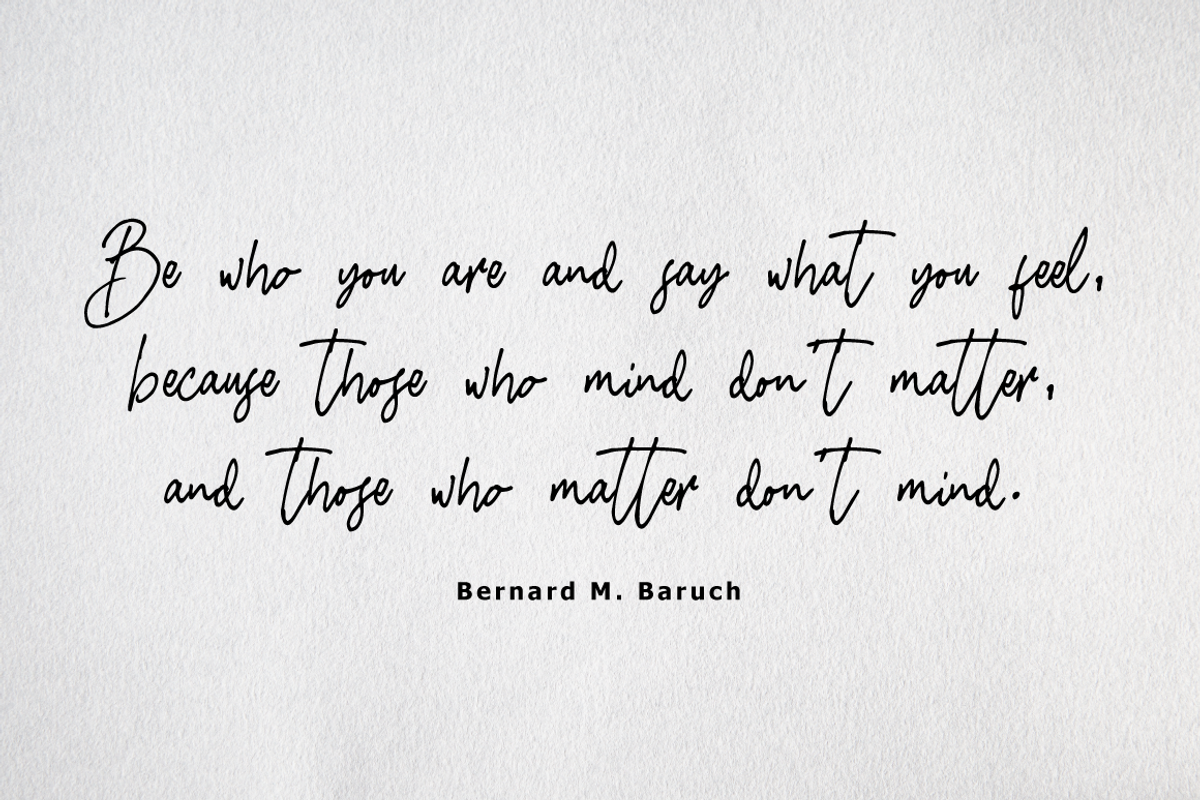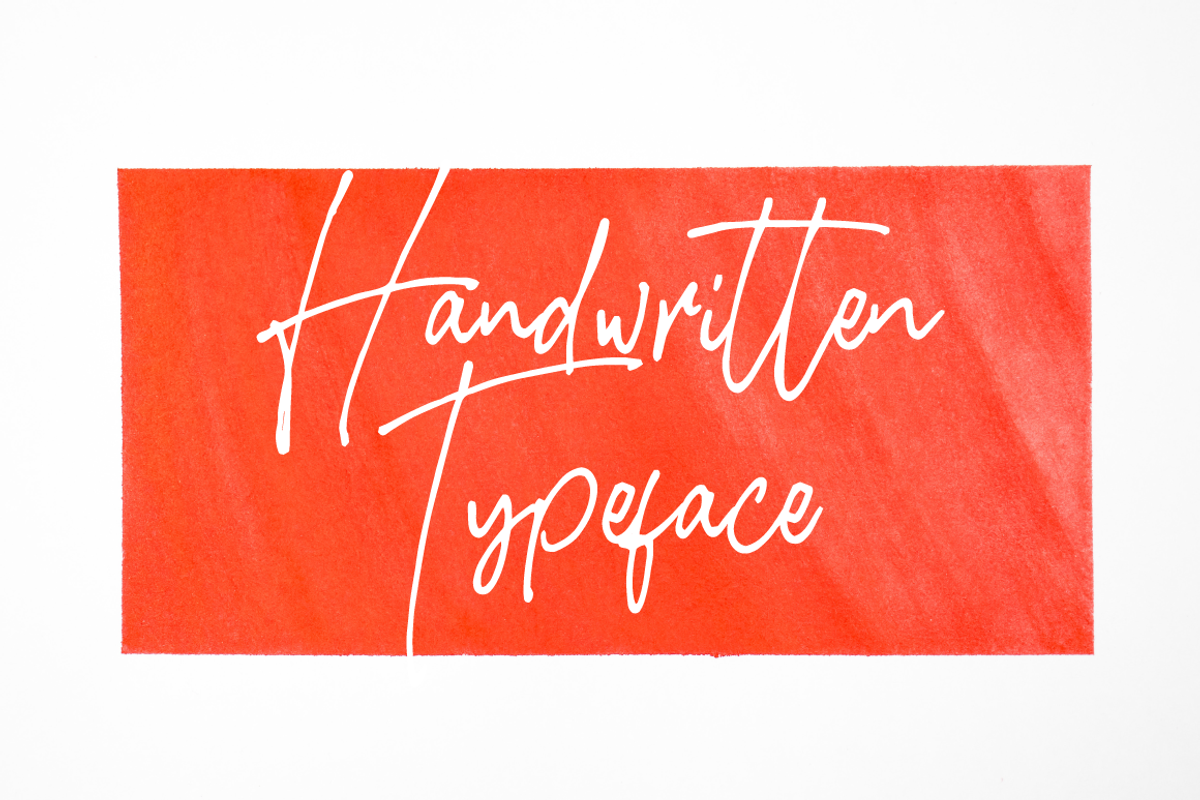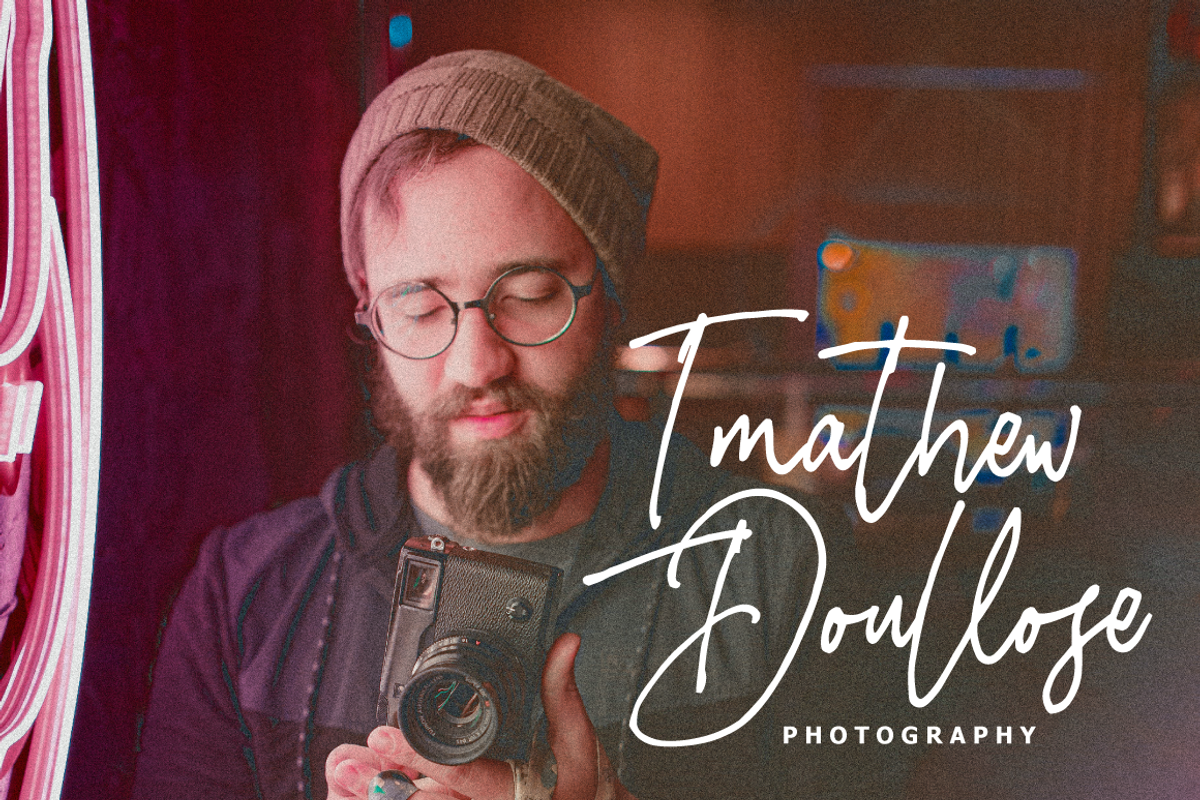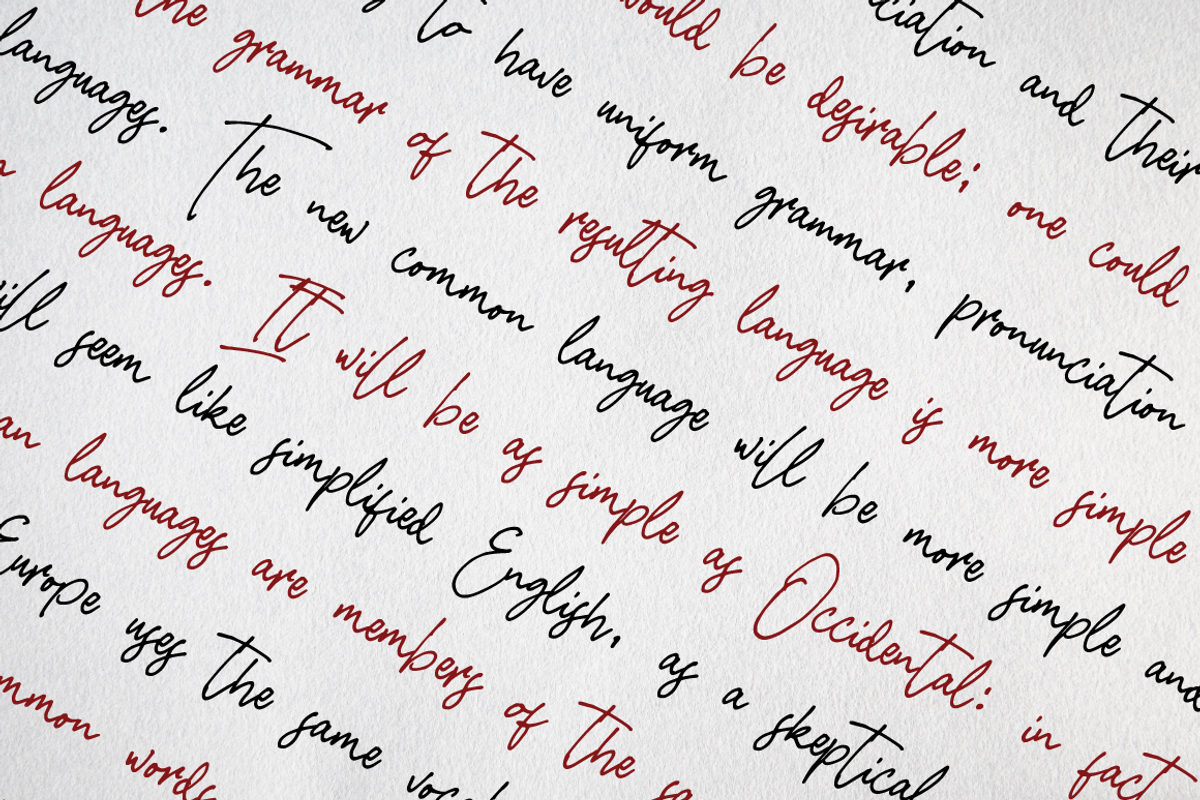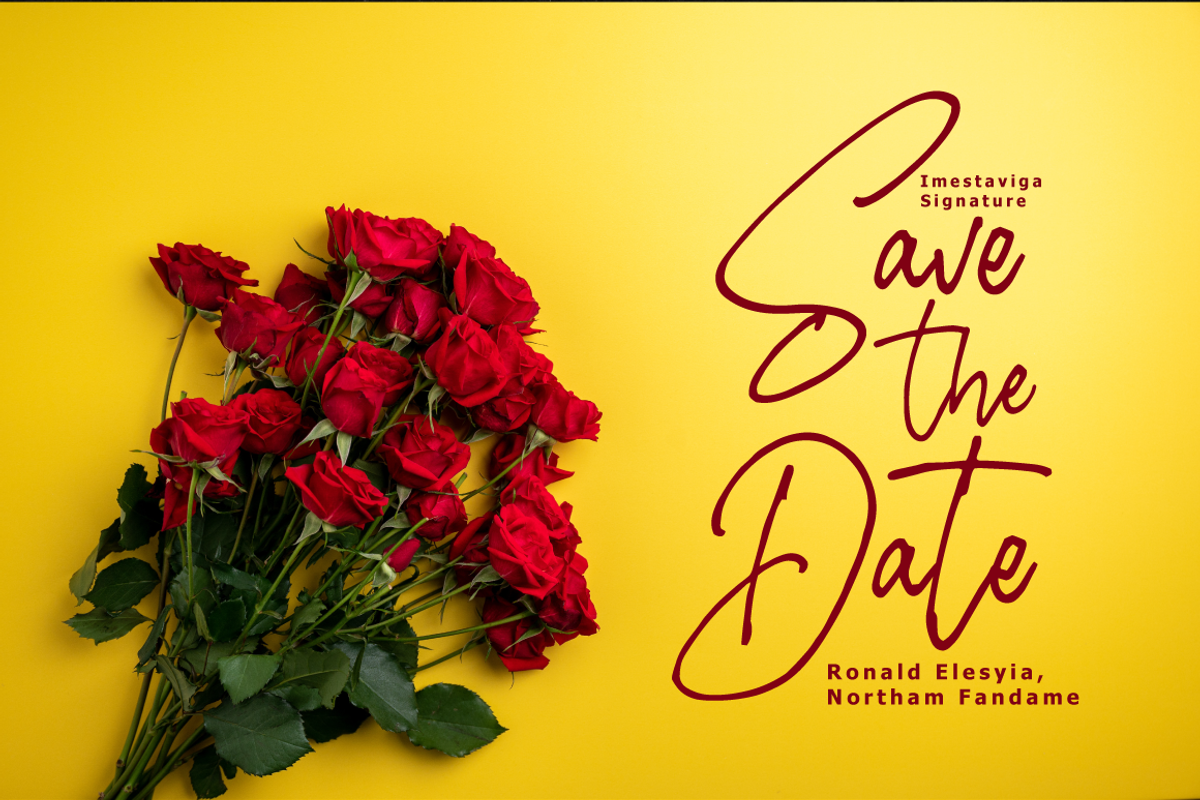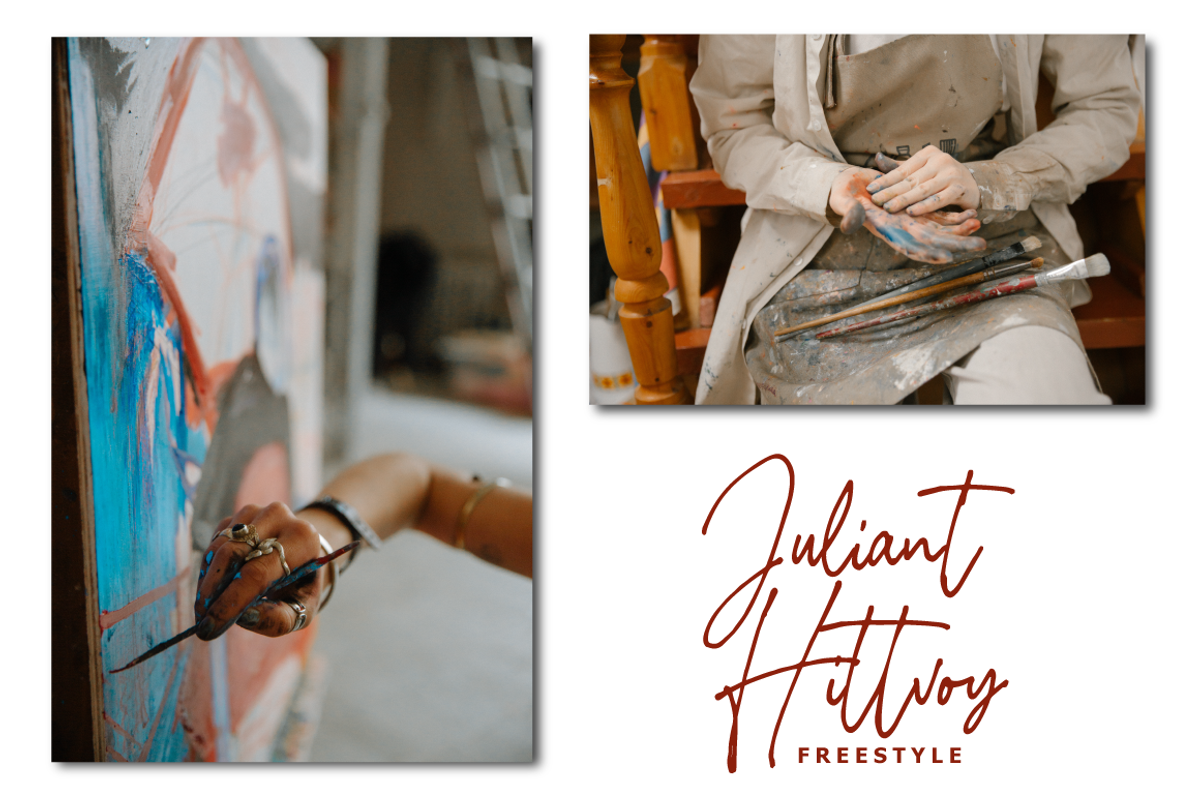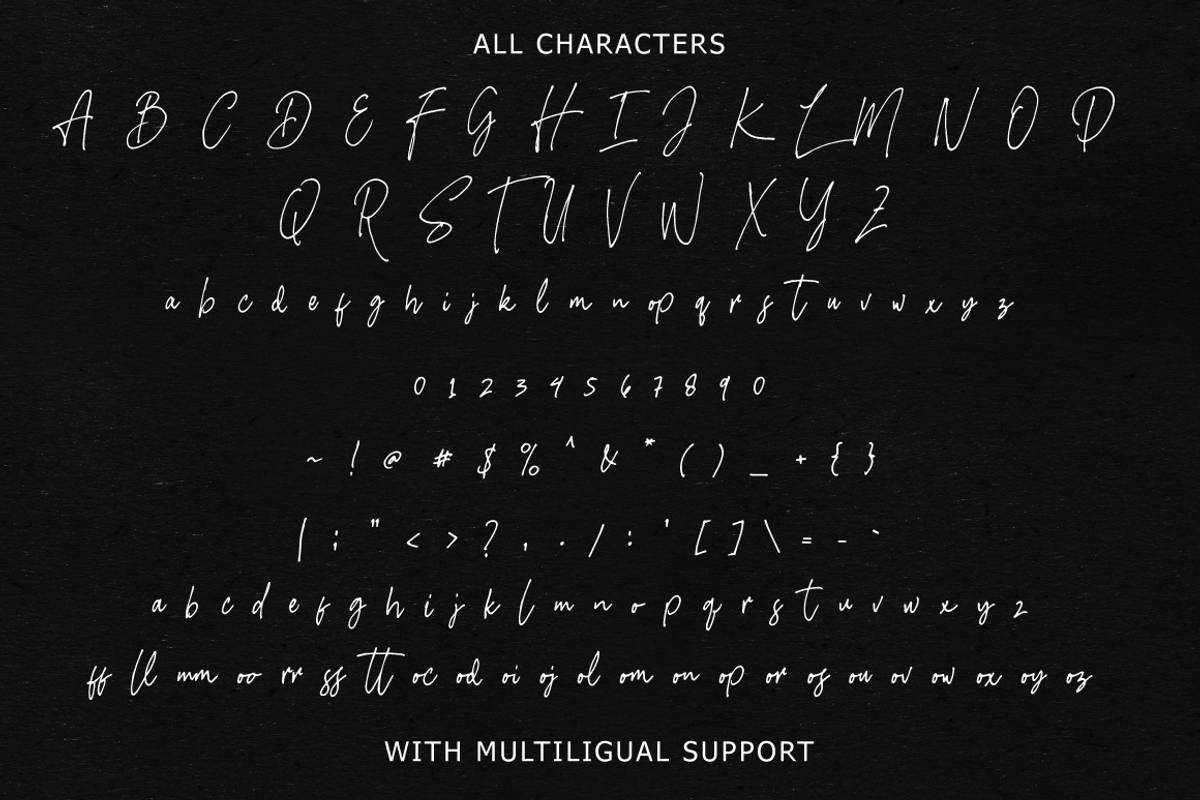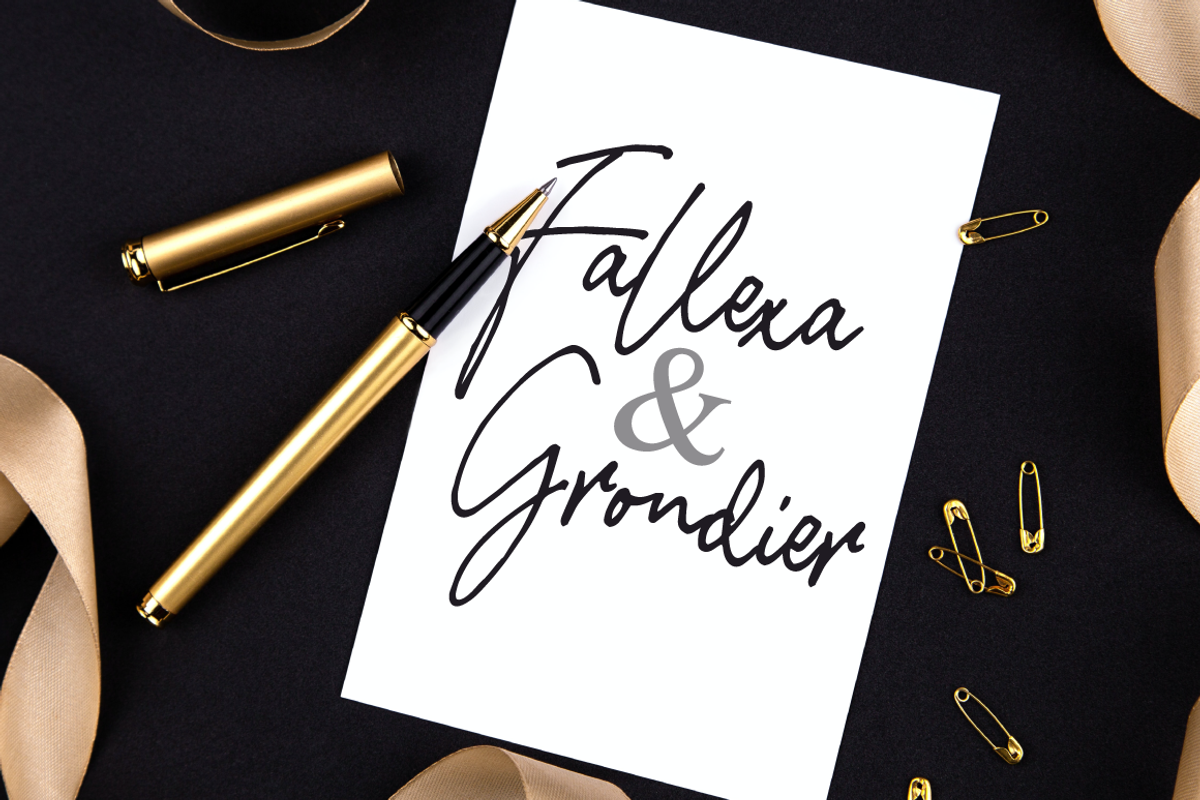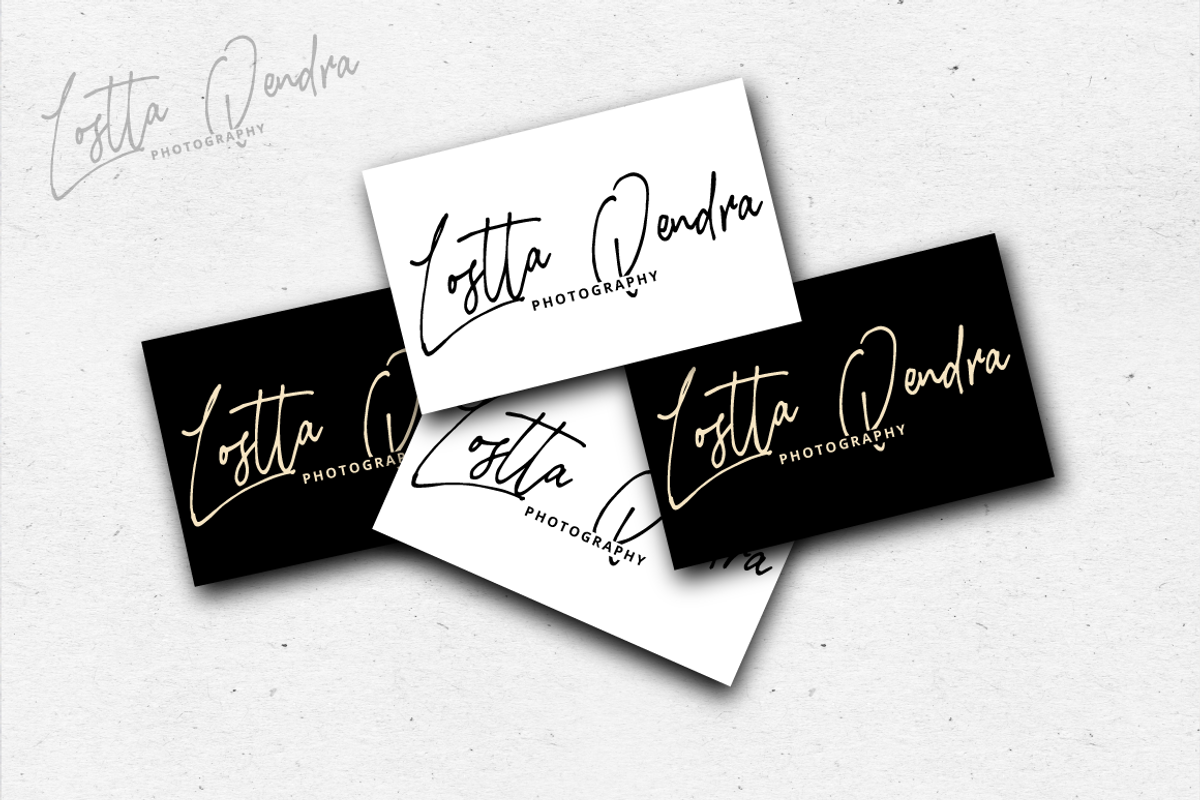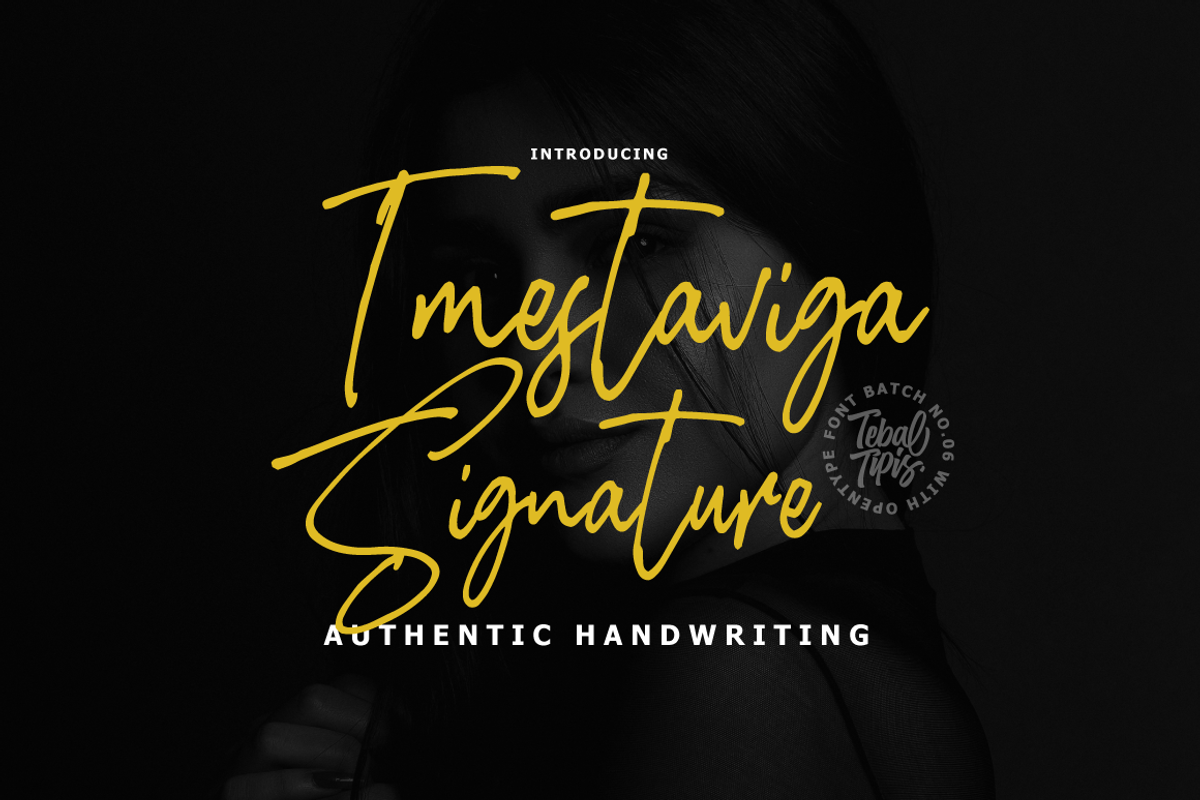
Imestaviga - Authentic Signature
Imestaviga Signature with a handmade calligraphy style, decorative characters and a dancing baseline! So beautiful on invitation like greeting cards, branding materials, business cards, quotes, posters, and more!!
Imestaviga Signature come with 200+ glyphs. The alternative characters were divided into several Open Type features such as Swash, Stylistic Sets, Stylistic Alternates, and Ligature. The Open Type features can be accessed by using Open Type savvy programs such as Adobe Illustrator, Adobe InDesign, Adobe Photoshop Corel Draw X version, And Microsoft Word. And this Font has given PUA unicode (specially coded fonts). so that all the alternate characters can easily be accessed in full by a craftsman or designer.
Imestaviga Signature Features :
Uppercase & Lowercase International Languange & Symbols Support Punctuation & Number PUA Unicode Range Standard Ligatures Discretionary Ligatures Stylistic Alternates Stylistic Set 01-07: